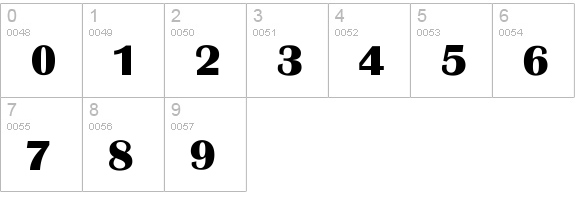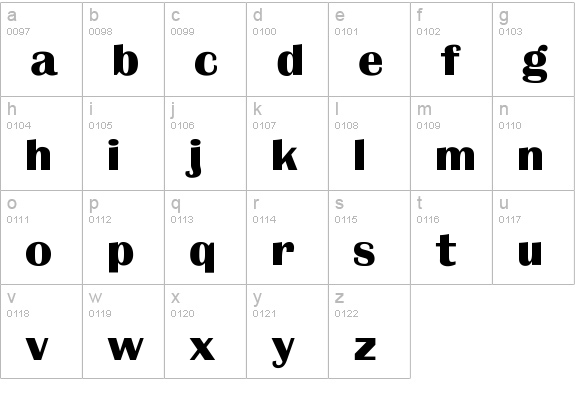
QueenBold Font Details
QueenBold is a stunning and majestic font that exudes elegance and regality. Its bold and confident letterforms command attention, making it the perfect choice for any project that requires a touch of grandeur. With its strong and powerful presence, QueenBold is sure to make a statement and leave a lasting impression. What sets QueenBold apart is its accessibility - it is not only visually captivating, but it is also freely available to download at FontsMarket.com. This means that anyone can add a touch of royalty to their designs without breaking the bank. Whether you are a professional graphic designer or a passionate hobbyist, QueenBold allows you to unleash your creativity without any restrictions. The carefully crafted curves and intricate details of QueenBold make it a versatile font that can be used across a wide range of applications. From headlines to logos, invitations to advertisements, this font will elevate any design and give it a touch of sophistication. QueenBold is not just a font, but a powerful tool that empowers designers to create visually striking and memorable visuals. Its bold and commanding presence will capture the attention of your audience and leave a lasting impact. So why wait? Embrace the royal essence of QueenBold and download it freely at FontsMarket.com. Let your designs stand out and make a bold statement with this exquisite font.